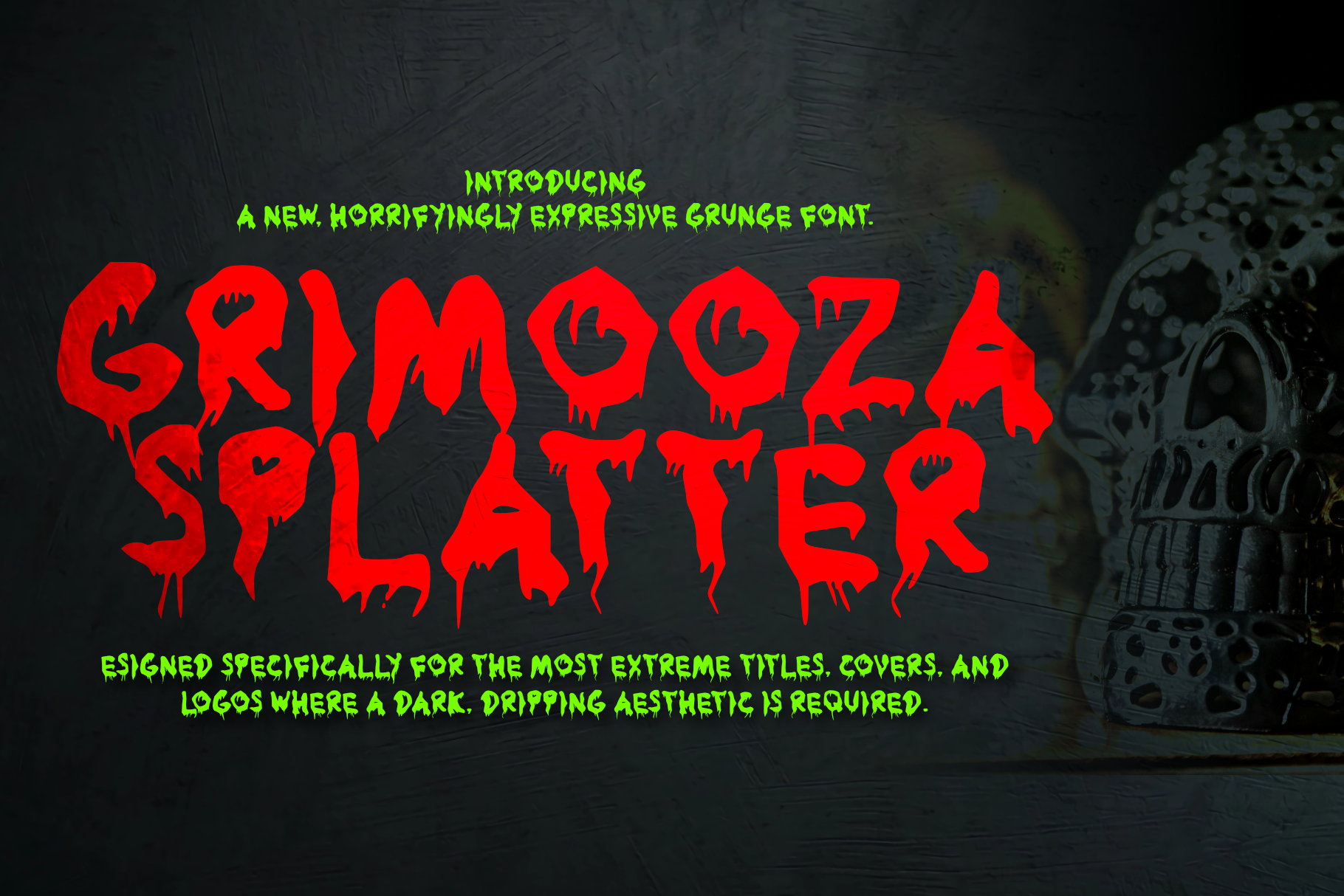
Grimooza Splatter Spooky Font
Grimooza Splatter is a bold and chaotic horror display font inspired by dripping slime, spooky creatures, and vintage monster aesthetics. Its irregular, melting letterforms create an eerie and playful atmosphere, making it perfect for Halloween-themed projects, horror movie posters, game titles, YouTube thumbnails, party invitations, merchandise, and eye-catching branding. With its distinctive handcrafted look and strong visual impact, Grimooza Splatter brings a creepy yet fun personality to any design that demands attention. Ideal for spooky headlines, themed events, comic covers, social media graphics, and unforgettable horror-inspired creative projects.